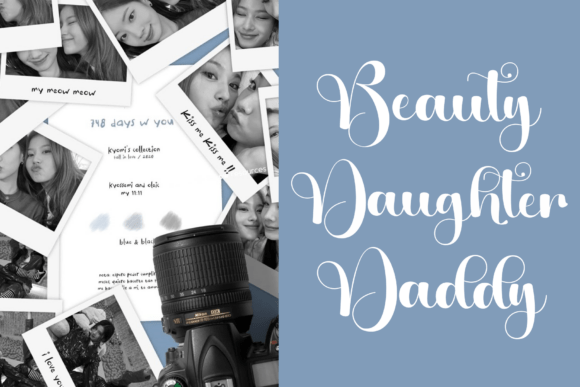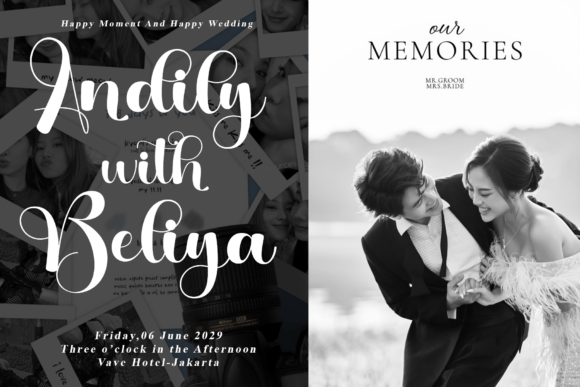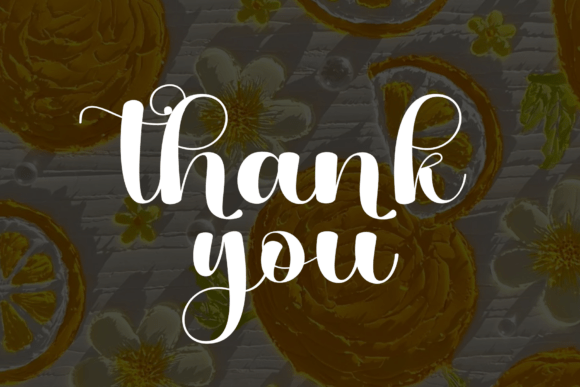
When Words Become Works of Art
Imagine walking into a luxurious event, surrounded by the soft glow of candelabras and the gentle hum of champagne glasses. The air is electric, and the atmosphere is set ablaze by a single, stunning phrase: ‘Welcome to the Night.’ That’s where the Beauty Alphabet Font comes in – a breathtaking script that adds an air of sophistication to any design.
As designers, we’re constantly on the lookout for typefaces that elevate our work and leave a lasting impression. The Beauty Alphabet Font is more than just a pretty face – it’s a powerful tool that demands attention and adds a touch of glamour to any project. Whether you’re creating a website, event banner, or luxury product branding, this font is sure to make a statement.
Key Features of Beauty Alphabet Font
- Unique Hand-Drawn Style: Beauty Alphabet Font features a beautiful, hand-drawn design with elegant curves and delicate lines, perfect for adding a touch of sophistication to your designs.
- Multi-Language Support: Beauty Alphabet Font supports a wide range of languages, including English, Spanish, French, German, Italian, and many more.
- Professional and Elegant Design: Beauty Alphabet Font is perfect for creating a professional and elegant look in your designs, from logos and branding to typography and graphics.
Beauty Alphabet Font Review
Overall, I’d say that the Beauty Alphabet Font is a lovely addition to any design project. ✨ The font is elegant and modern, making it perfect for beauty, fashion, or lifestyle-related branding.
- The font is highly customizable, with a wide range of colors and styles to choose from. ✨
- It’s incredibly versatile, suitable for both digital and print media. ✨
- The font’s bold and playful nature makes it perfect for headlines and titles. ✨
- The font can be a bit too ornate for some users, which may make it difficult to read at smaller sizes. ⚠️
- Some of the letters and symbols may not be supported in certain languages or fonts. ⚠️
In conclusion, while the Beauty Alphabet Font has its limitations, its unique charm and customization options make it a great choice for designers looking to add a touch of elegance to their projects. With a little care and attention to detail, this font can be a true showstopper.
The Beauty Alphabet Font is ideal for creating visually appealing headings, titles, and labels. Use it to add a touch of elegance to your designs, whether it’s for a beauty product label, a fashion magazine, or a cosmetics website.
To get the most out of the Beauty Alphabet Font, experiment with different font sizes, colors, and combinations. Use it to create a cohesive brand identity or to add a unique touch to your designs.